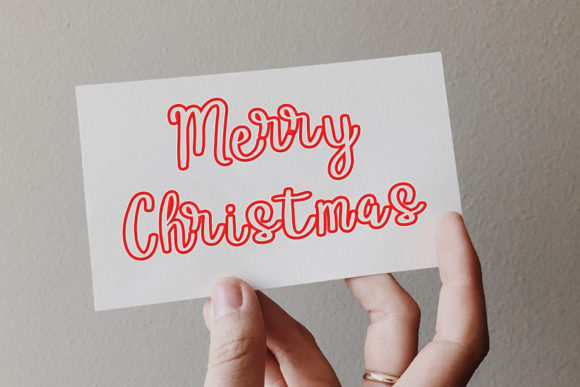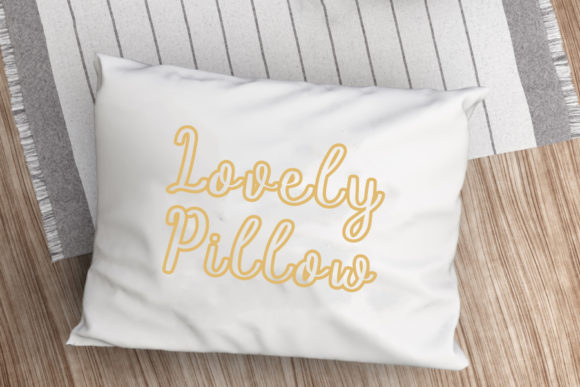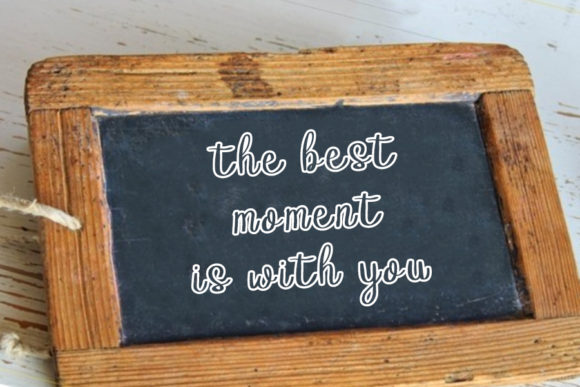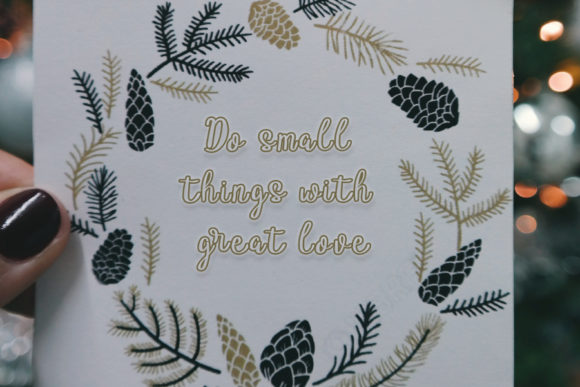
Unlock the Enchantment of Christmas Magic Font
As the festive season approaches, designers and crafters are on the lookout for the perfect typography to add a touch of magic to their projects. Look no further than the Christmas Magic Font, a truly outstanding handwritten font that simplifies elegance into one extraordinary design. In this article, we’ll dive into the world of Christmas Magic Font, exploring its features, benefits, and uses, and why it’s the perfect fit for all your logos, branding, social media, and crafty DIY projects.
What is Christmas Magic Font?
Christmas Magic Font is a beautiful, handwritten font that captures the essence of the festive season. With its elegant and flowing script, this font is perfect for adding a touch of sophistication and whimsy to any design project. Whether you’re creating a logo, branding materials, social media graphics, or crafty DIY projects, Christmas Magic Font is the ideal choice.
Features of Christmas Magic Font
- Elegant Handwritten Script: Christmas Magic Font boasts a stunning handwritten script that’s perfect for creating elegant and sophisticated designs.
- Versatile: This font is incredibly versatile, making it suitable for a wide range of design projects, from logos and branding to social media graphics and crafty DIY projects.
- Easy to Read: Despite its elegant nature, Christmas Magic Font is easy to read, making it perfect for use in body text and captions.
- Unique and Distinctive: This font has a unique and distinctive style that will set your designs apart from the crowd.
Benefits of Using Christmas Magic Font
So, why should you choose Christmas Magic Font for your design projects? Here are just a few benefits of using this amazing font:
- Adds a Touch of Elegance: Christmas Magic Font adds a touch of elegance and sophistication to any design project, making it perfect for high-end brands and luxury products.
- Creates a Festive Atmosphere: This font is perfect for creating a festive atmosphere, making it ideal for holiday-themed designs and seasonal marketing campaigns.
- Stand Out from the Crowd: With its unique and distinctive style, Christmas Magic Font will help your designs stand out from the crowd and grab attention.
- Perfect for DIY Projects: This font is also perfect for crafty DIY projects, such as handmade cards, gift tags, and decorations.
Using Christmas Magic Font for Logos and Branding
Christmas Magic Font is an excellent choice for logos and branding materials, particularly for businesses that want to convey a sense of elegance and sophistication. Here are a few ways you can use this font for your logo and branding:
- Logo Design: Use Christmas Magic Font to create a stunning logo that showcases your brand’s personality and style.
- Business Cards: Add a touch of elegance to your business cards with Christmas Magic Font, making them perfect for high-end networking events.
- Brand Guidelines: Use this font consistently across all your branding materials, including letterheads, invoices, and packaging.
Using Christmas Magic Font for Social Media
Christmas Magic Font is also perfect for social media graphics, adding a touch of festive flair to your posts and stories. Here are a few ways you can use this font for social media:
- Social Media Posts: Use Christmas Magic Font to create eye-catching social media posts that showcase your brand’s personality and style.
- Instagram Stories: Add a touch of elegance to your Instagram stories with Christmas Magic Font, making them perfect for holiday-themed promotions and giveaways.
- Facebook Graphics: Use this font to create stunning Facebook graphics, including event invitations, promotions, and announcements.
Using Christmas Magic Font for Crafty DIY Projects
Finally, Christmas Magic Font is perfect for crafty DIY projects, such as handmade cards, gift tags, and decorations. Here are a few ways you can use this font for your DIY projects:
- Handmade Cards: Add a touch of elegance to your handmade cards with Christmas Magic Font, making them perfect for special occasions.
- Gift Tags: Use this font to create stunning gift tags that add a personal touch to your gifts.
- Decorations: Use Christmas Magic Font to create beautiful decorations, such as banners, garlands, and signs.
In conclusion, Christmas Magic Font is a truly outstanding handwritten font that’s perfect for adding a touch of elegance and magic to your design projects. With its versatile and easy-to-read script, this font is suitable for a wide range of projects, from logos and branding to social media graphics and crafty DIY projects. Whether you’re a designer or crafter, Christmas Magic Font is an excellent choice for anyone looking to create stunning and festive designs.